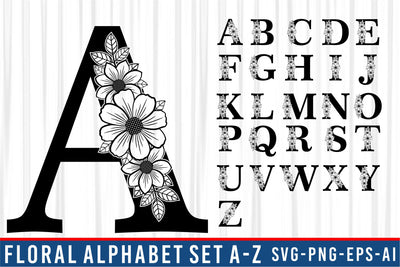
Floral Alphabet Monogram SVG Bundle, Floral Font SVG Set A-Z, Floral Letters SVG, Flower Alphabet SVG Bundle, Flower Font SVG Set A-Z, Flower Letters SVG,